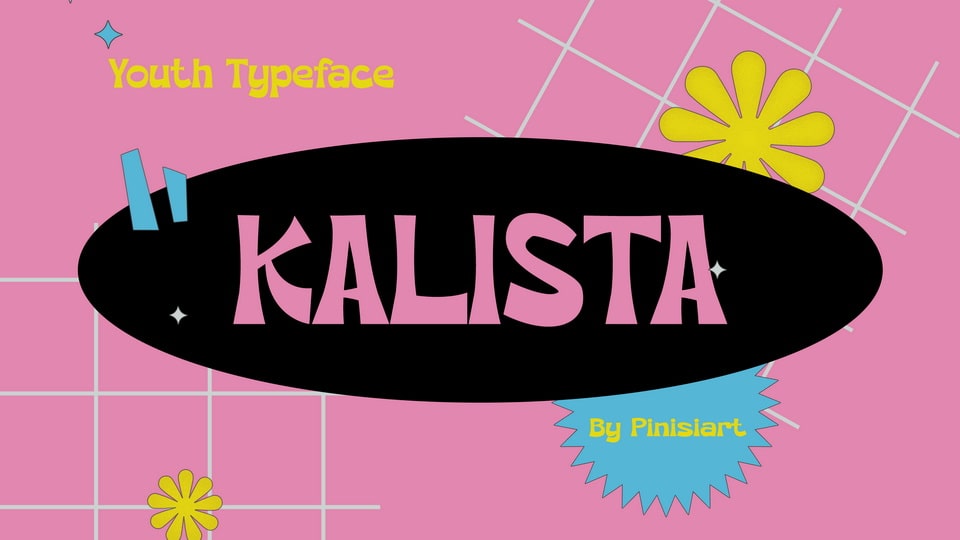
Download Kalista font, a youth typeface. Suit perfectly pop culture books market, online games, teens event posters, school supplies font, posters, movie titles and so on.